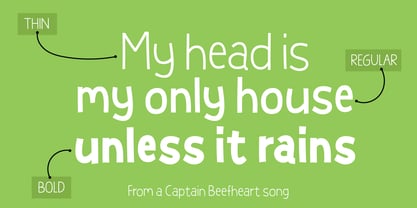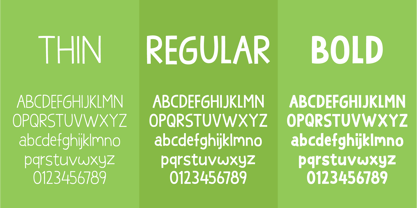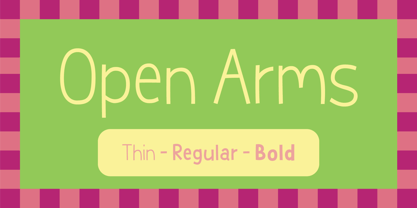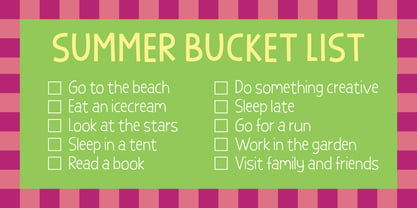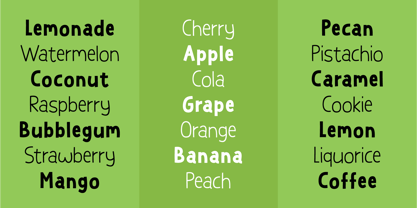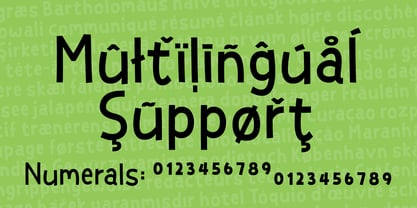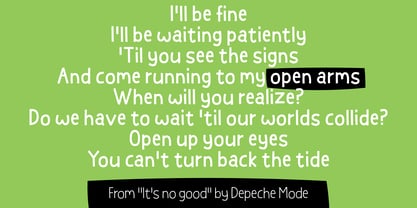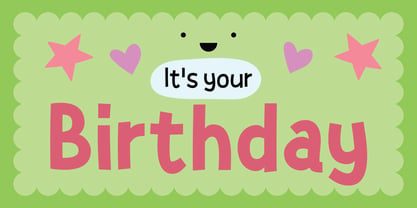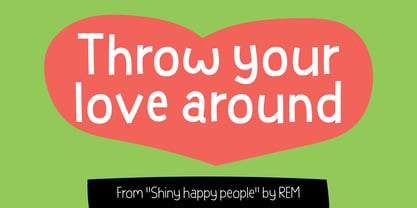
Open Arms
La famille de polices Open Arms a été conçue par Jakob Fischer et publiée par PizzaDude.dk. Open Arms contient 6 styles et options de package familial. En savoir plus sur cette famille
Open Arms is my playful and vivid sans font. As you can see, it’s super legible and works well in both rich texts and shoutouts.
It is designed to fit your needs, whether this is for social media, kids books, packaging, craft projects or something that needs a little extra fun :)
Open Arms comes in both Thin, Regular and Bold
Features:
I have included the Standard Ligatures - the well-known ligatures such as ff, fi, fl, ffi, ffl
Subscript and Superscript
Normally typedesigners resizes the numbers to make Subscript and Superscript. I do that on occasions as well, but in this case I have drawn the numbers, instead of resizing them. That way they appear more natural, organic and unique.
Fractions are nice having available. You skip the work of resizing the numbers yourself, because I have done all the work for you!
Multilingual support
This font comes with extensive multilingual support, and supports loads of different languages.